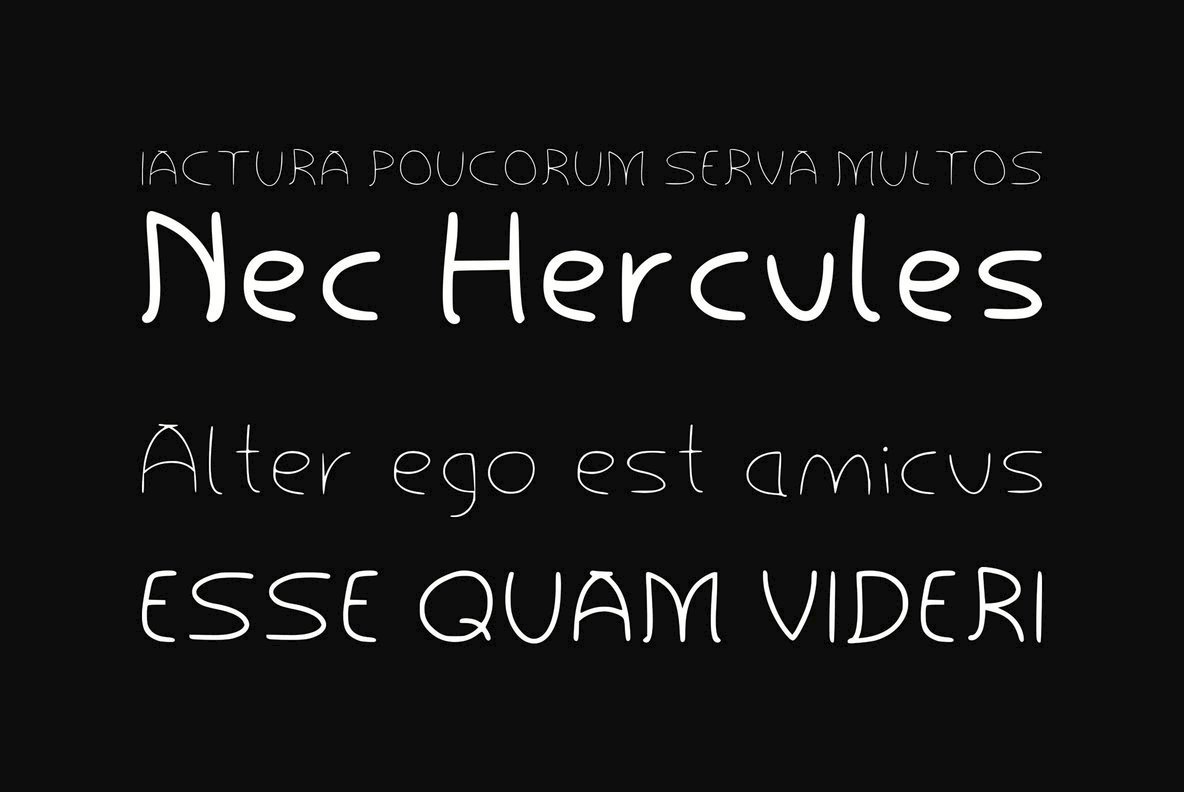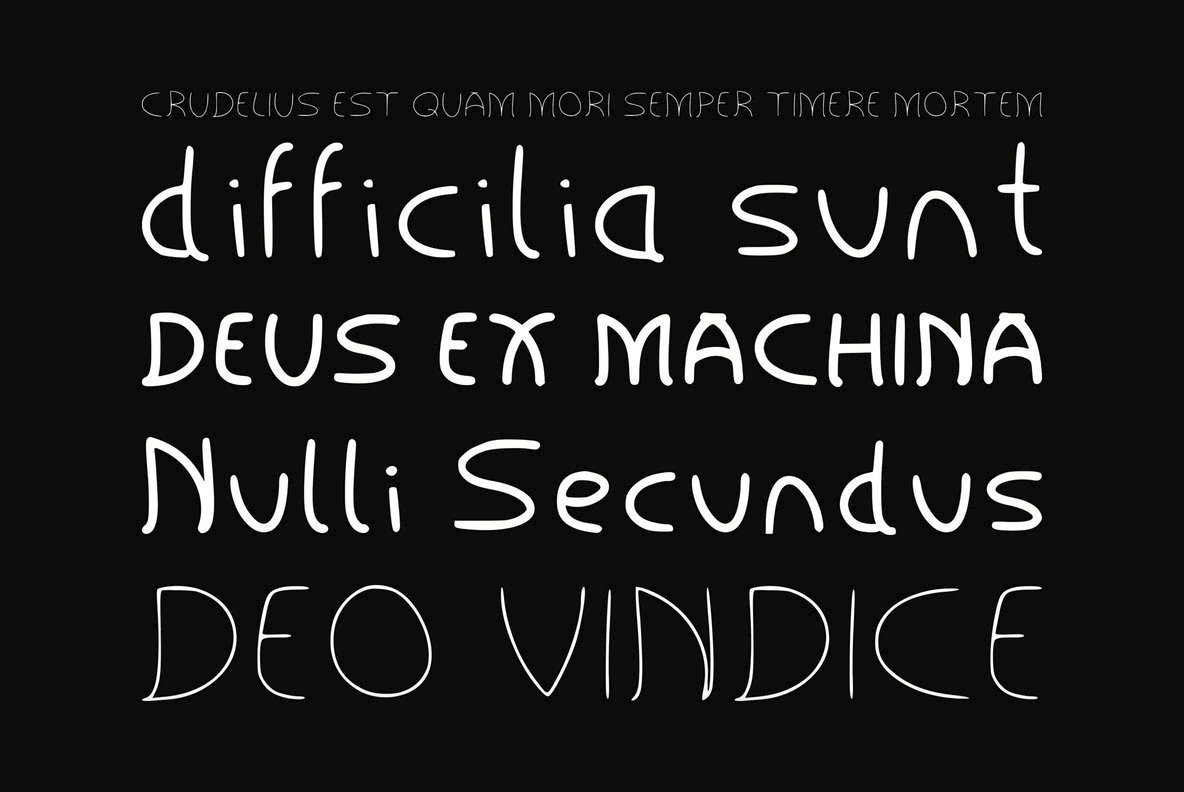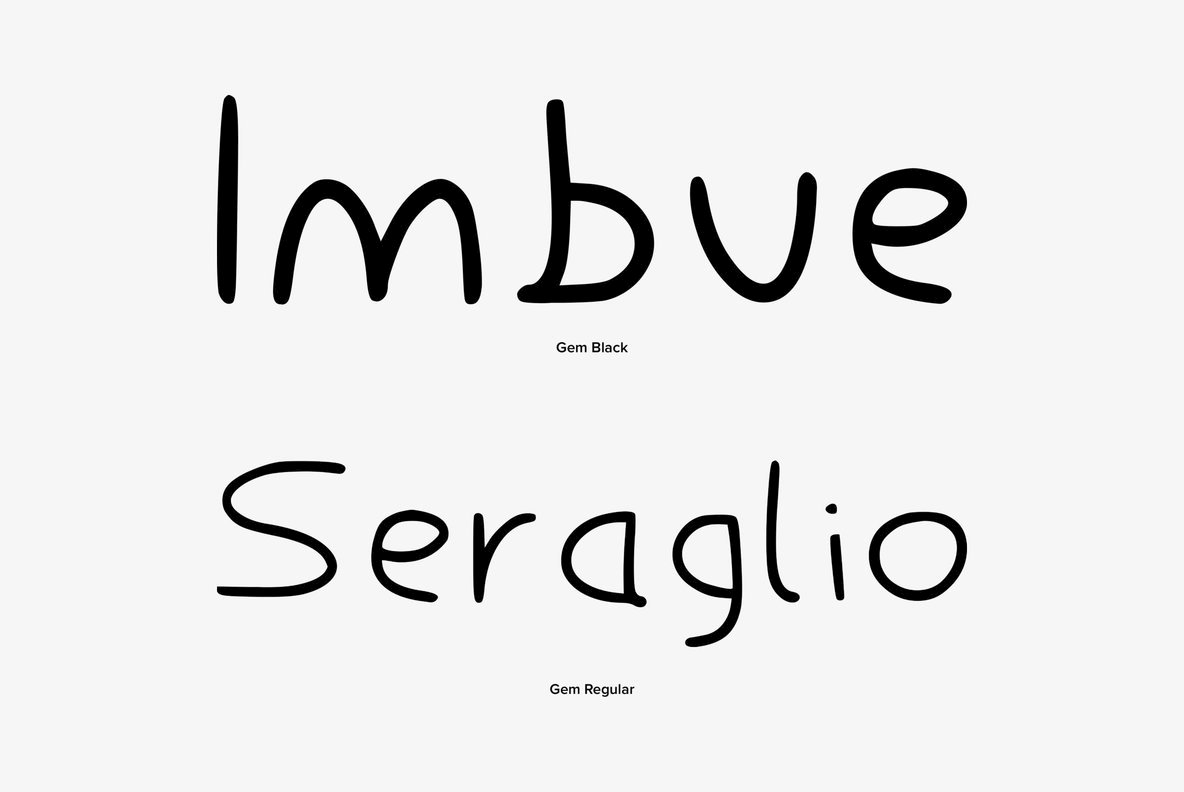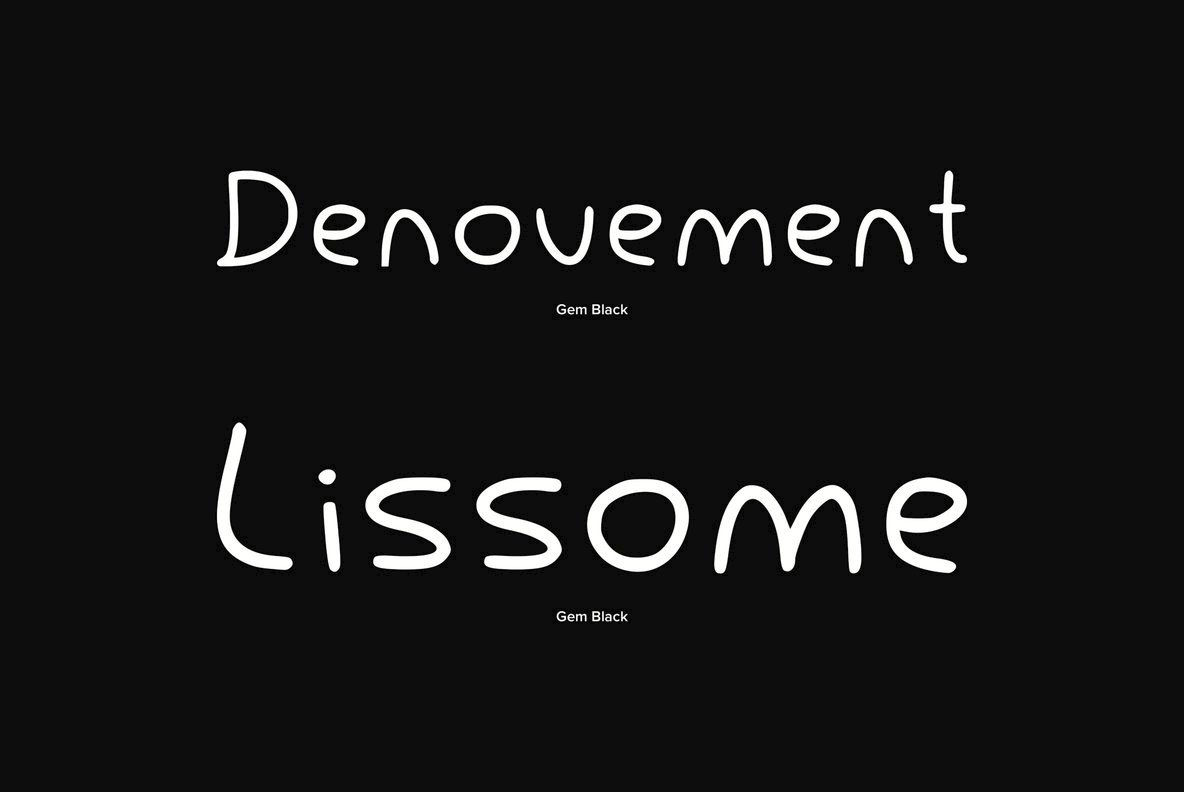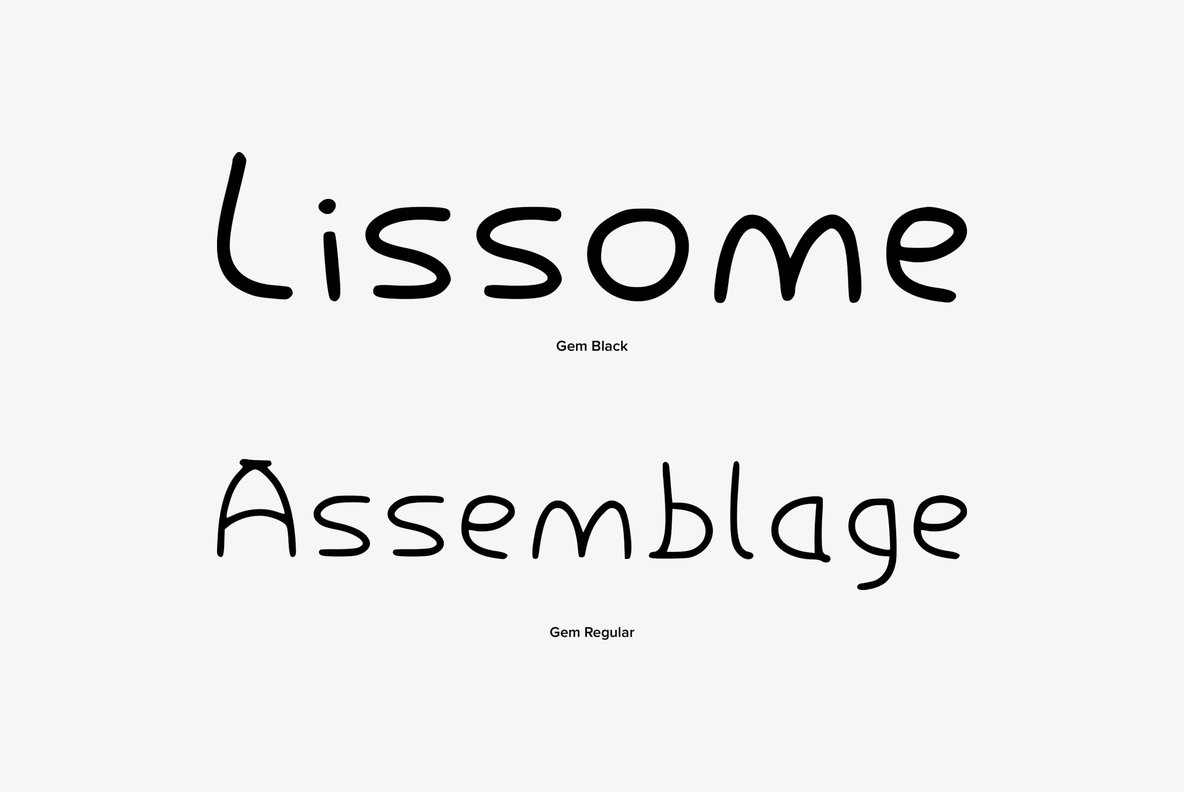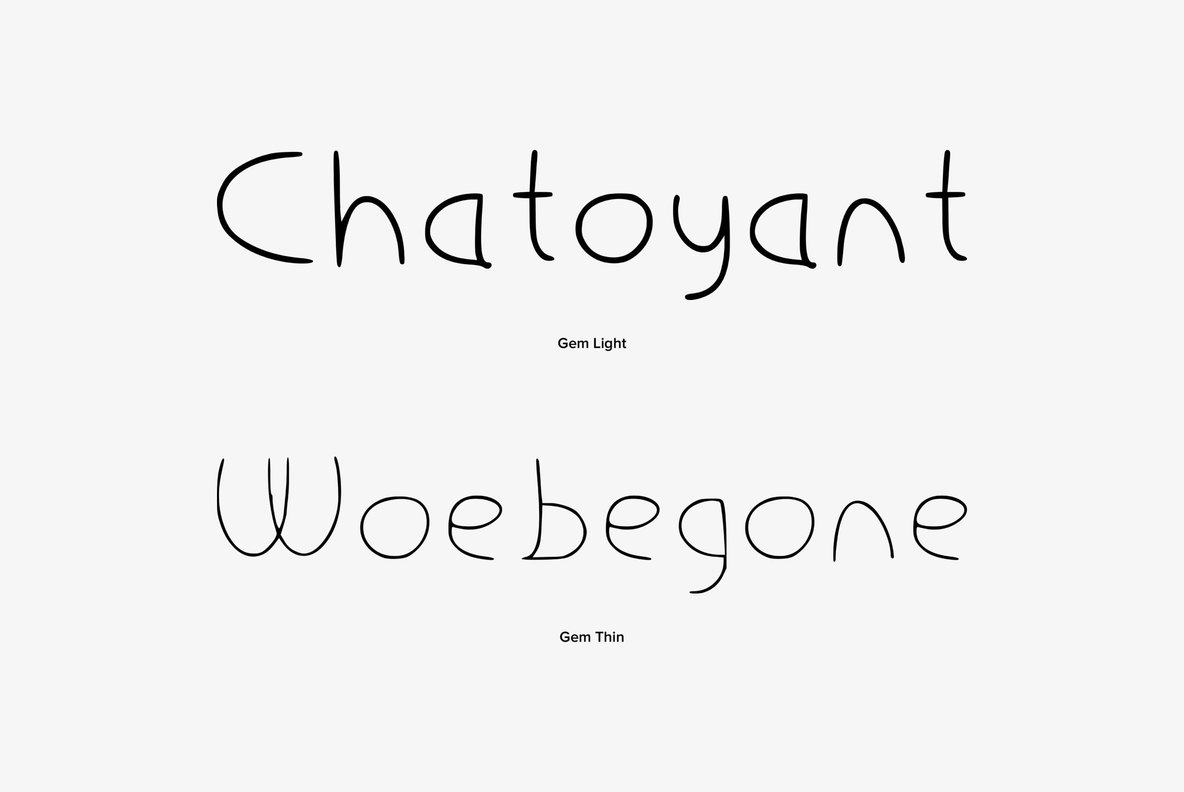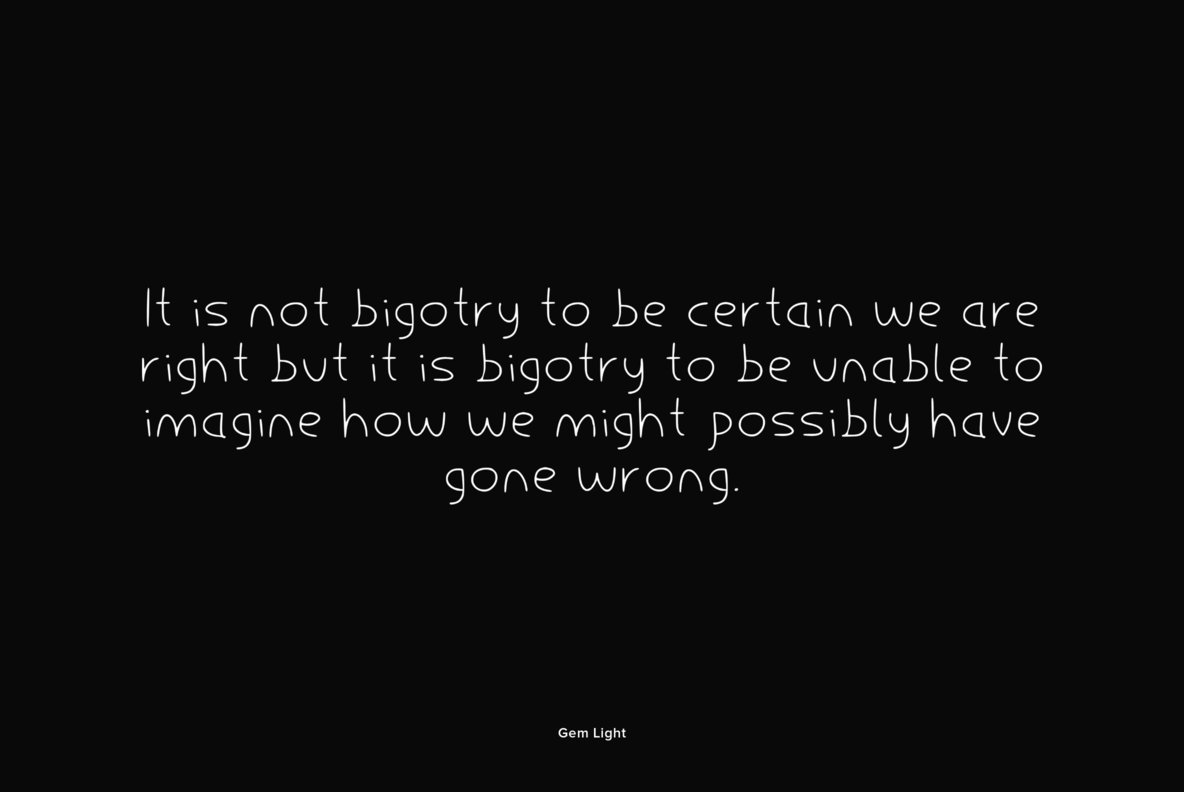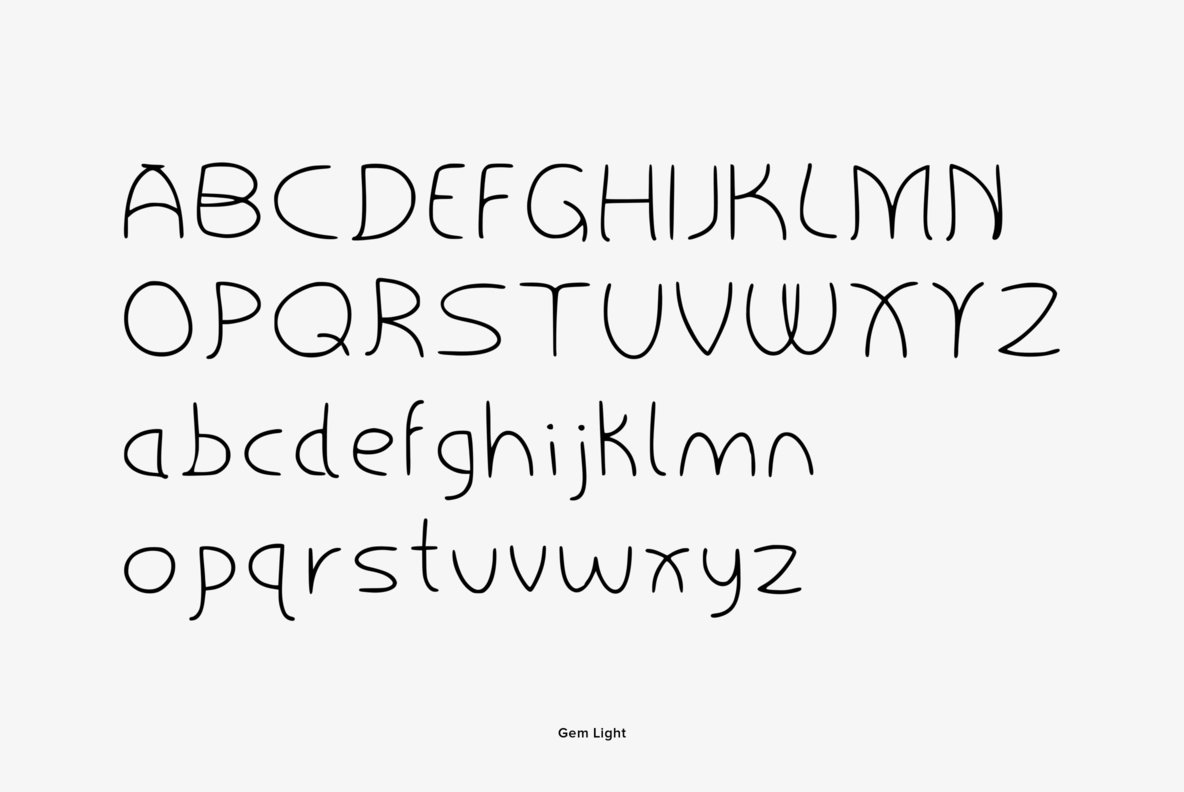
Gem Font
Gem is a cute, casual font with fun marks and elements to give it a big personality. Great for display or even body copy it has a big jolly family to gain even more attention. Gem is happy, Gem is outgoing and Gem is different! It's everything you need for a casual feel to your work with a comic-esq featuring its rounded edges found on the upper, lower, number, symbols and punctuation.